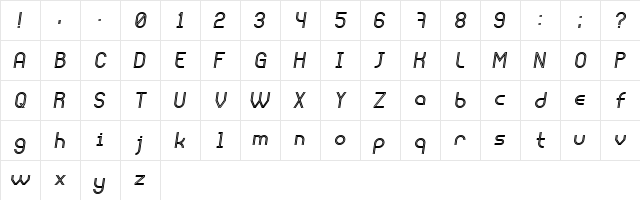
Liquidrom Italic
Design Context for Liquidrom Typeface
Liquidrom is a composed and adaptable typeface that performs quietly and consistently across a wide range of design contexts. The dynamic lean of this cut emphasises speed and emphasis in any layout.
Pro Tip: Use Liquidrom for emphasis, pull quotes, and subheadings where its slanted energy can add rhythm to the layout.